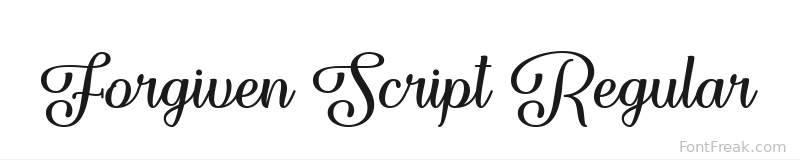
Forgiven Script Regular
About Forgiven Script Regular
Forgiven Script Regular is a captivating script font designed by Misti Hammers, embodying an elegant and flowing style that makes it a perfect choice for a variety of creative applications. This font, classified as a script typeface, features a blend of graceful curves and intricate loops, giving it a handwritten feel that adds a personal touch to any design. The stroke weight is consistent, providing a smooth reading experience, while the slight contrast in the letterforms enhances its visual appeal. The spacing between characters is thoughtfully designed to maintain legibility, even in longer texts.
Ideal for wedding invitations, Forgiven Script Regular brings an air of sophistication to the special day, making the event feel even more memorable. Its charm also shines in branding materials for small businesses, particularly those in the hospitality sector, such as restaurant menus that aim to convey a warm and inviting atmosphere. Additionally, this font is perfect for crafting personalized greeting cards or announcements, where a touch of elegance is desired. Graphic designers and content creators will find this typeface invaluable for projects that require a soft yet striking aesthetic.